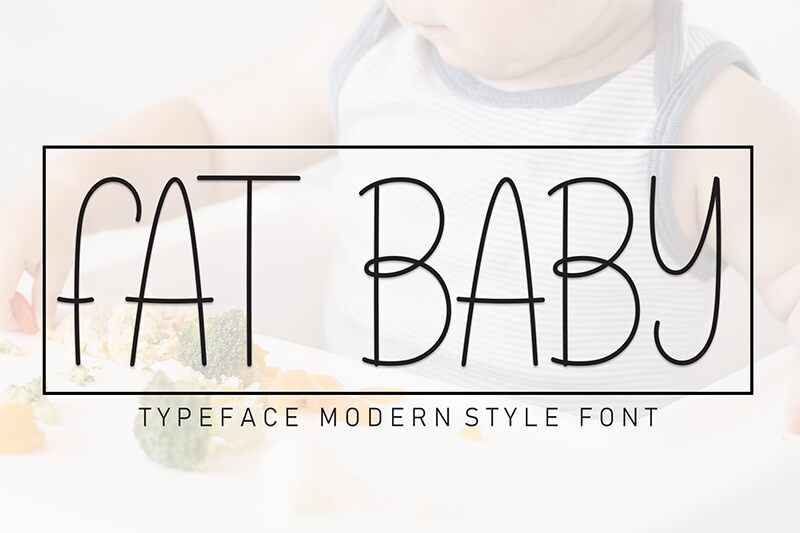
Fat Baby font
Fat Baby
This is a sweet and friendly handwritten display font. Cute and fun, this font is ideal for writing wedding invitations, cards, or any other design that requires a playful touch!